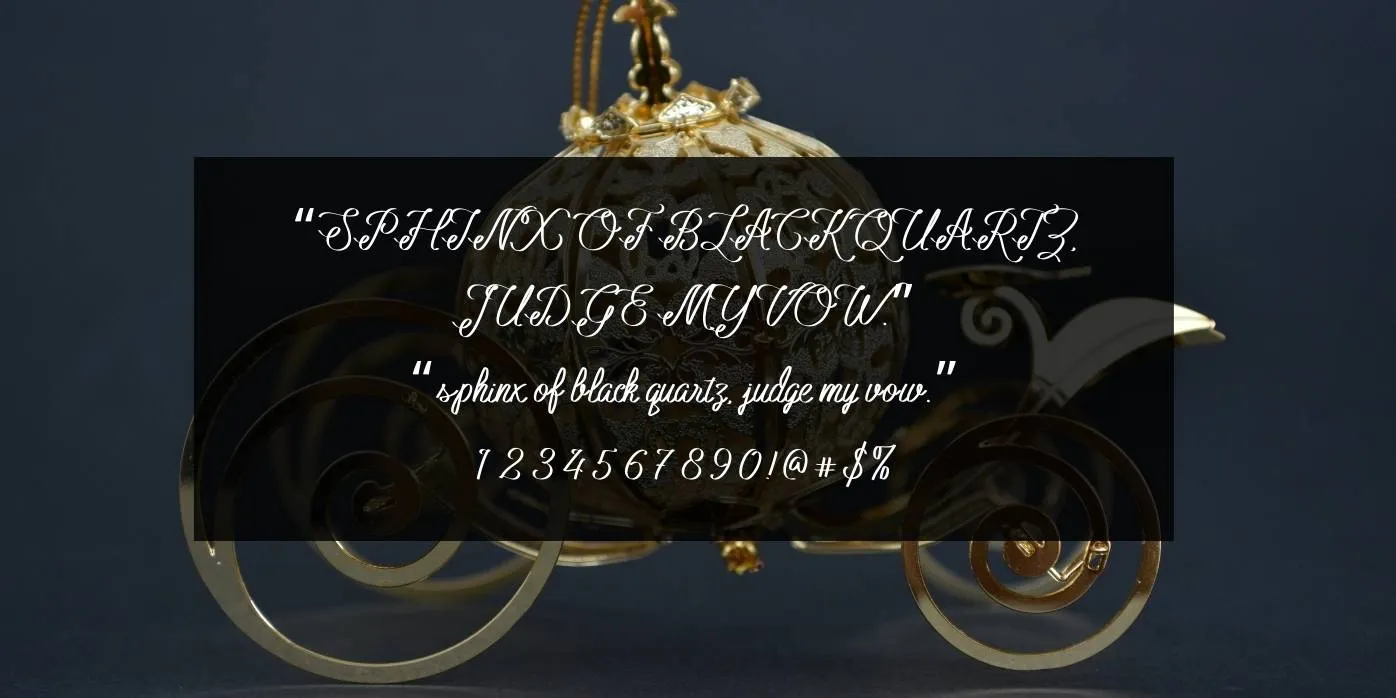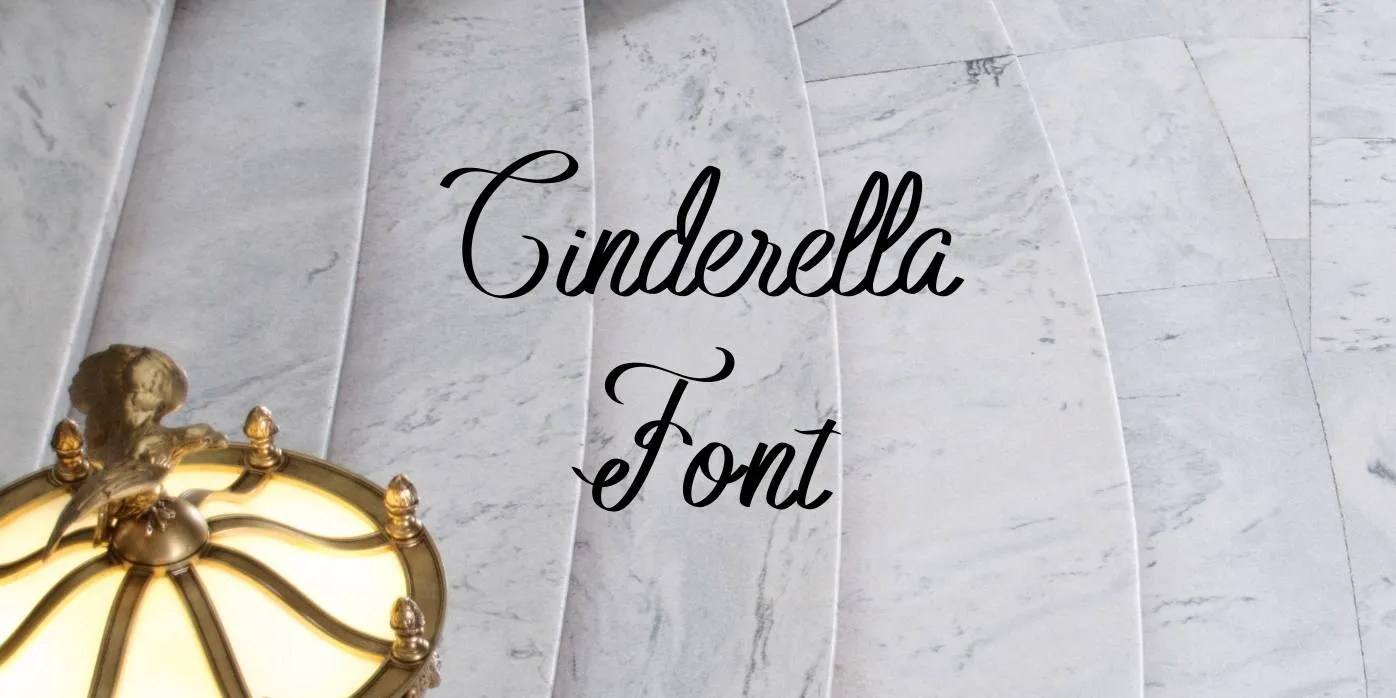
Cinderella Font
Cinderella Font is a very famous font developed by Vaiminit. This awesome typeface belongs to the calligraphy font family. It is perfect for invitations, branding, and other creative projects. You can also this typeface for Canva.
This beautiful font has two different styles: regular and cursive. The regular style is great for headlines and short texts, while the cursive style is perfect for longer texts. Cinderella Font also supports multiple languages, including Latin, Cyrillic, and Greek. Its copy and paste function is best for many designs.